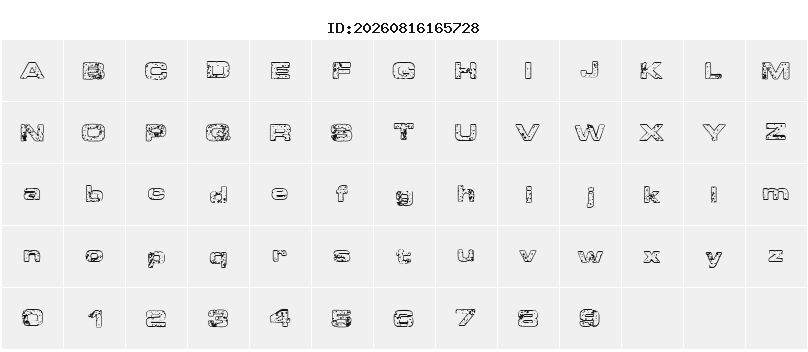
• Font Name: Sponge
• Designer: Steve Cloutier
About Sponge.ttf
Sponge.ttf is a modern, elegant sans-serif font designed for ultimate readability and visual harmony. Perfect for branding, headlines, web design, and print materials.